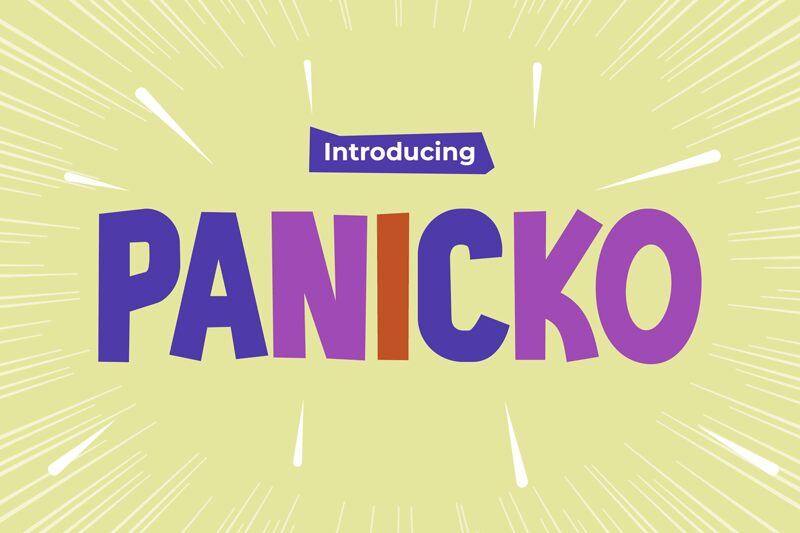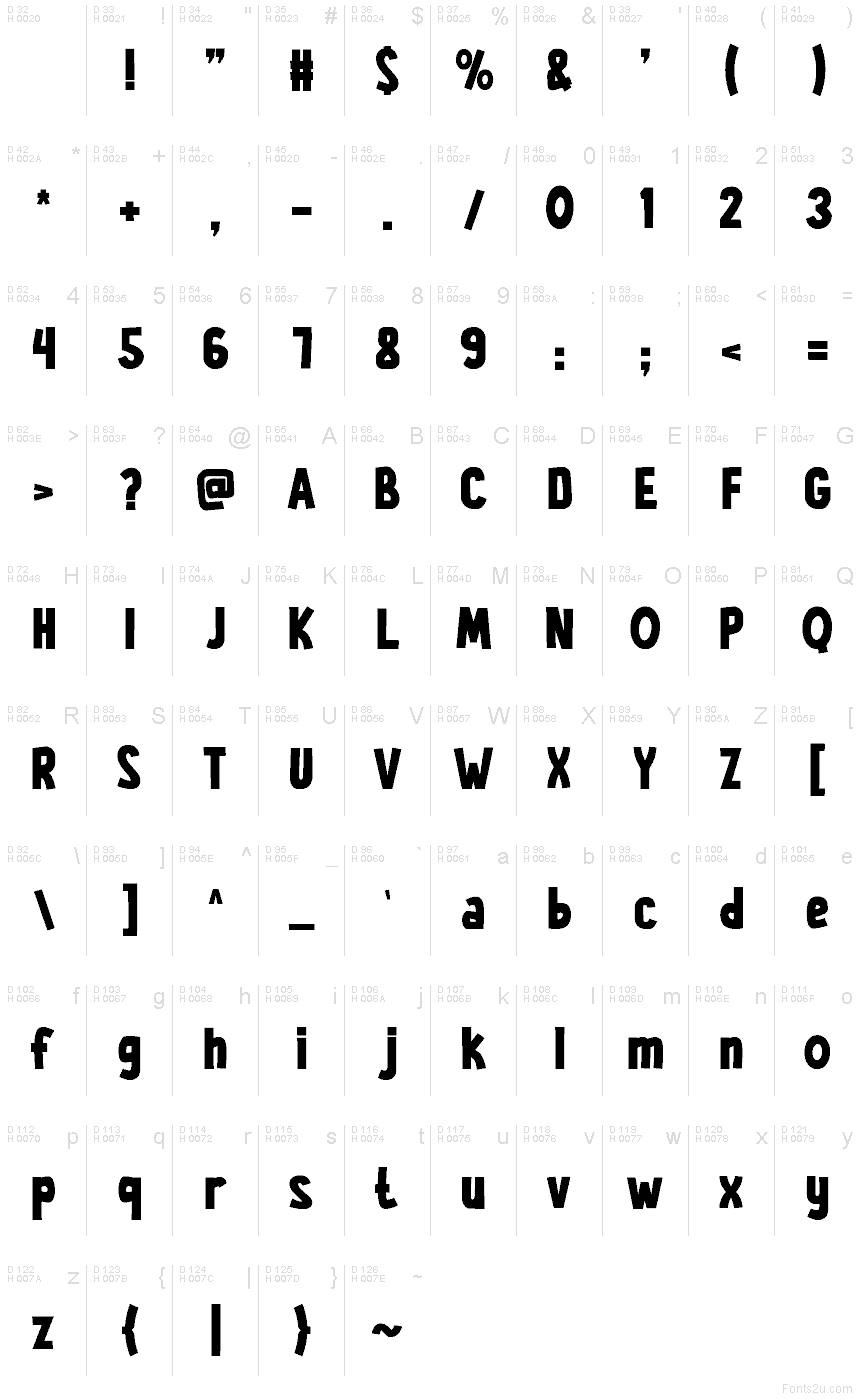
PANICKO
Panicko font by Pinisiart is a free bold cartoon display font. Its thick, off-kilter stems and scuffed, inky edges give every word a jumpy, comic-horror pulse—like letters caught mid-scream. The spacing lands snug, so lines stack with punchy rhythm while the subtle wobble keeps it playful rather than grim.
Using Panicko, titles leap off the page for Halloween posters, haunted house flyers, game splash screens, comic headers, escape-room signage, and loud sticker packs. This free font thrives at large sizes where its grain and jitter show. For body copy, pair it with a clean geometric sans to keep things readable and let Panicko handle the shout. Scale it big, tighten tracking slightly, and let the chaos do the talking.